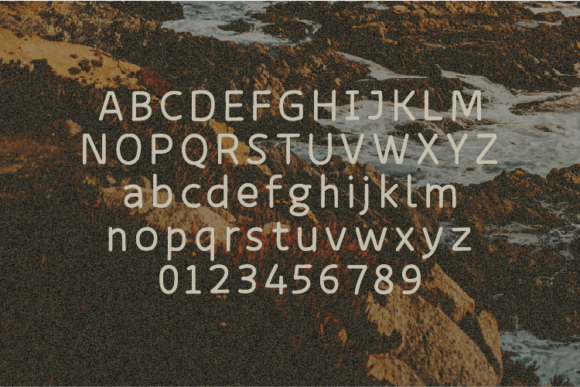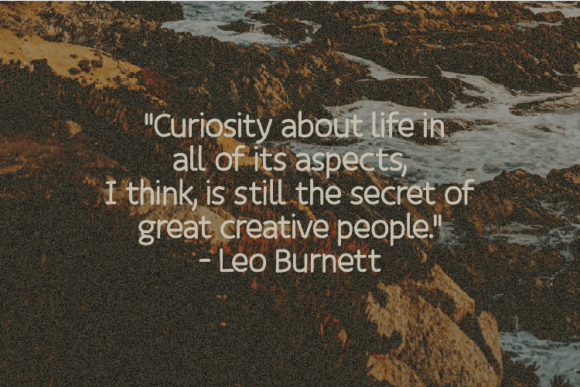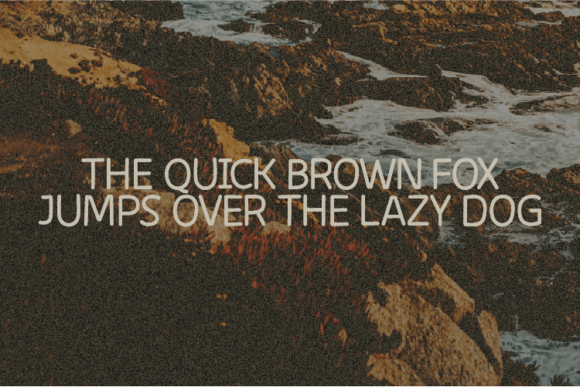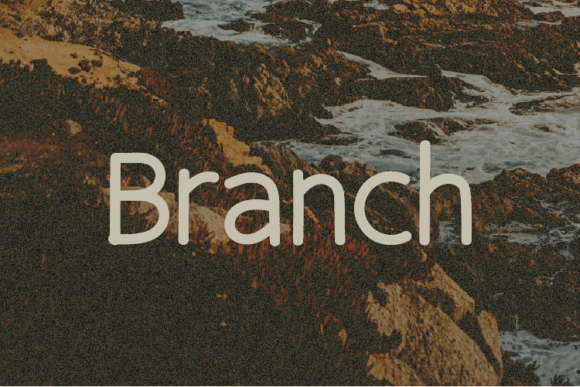
Introducing Branch Font: Elevate Your Craft with Elegance
In the world of design, the right typography can make all the difference. A well-crafted font can elevate your project, convey your message with clarity, and leave a lasting impression on your audience. If you’re a designer, crafter, or DIY enthusiast looking for a font that embodies natural elegance and effortless style, look no further than Branch Font. This casual and neat sans serif font is designed to impress, making it the perfect addition to your creative toolkit.
The Charm of Branch Font
Branch Font boasts a unique blend of simplicity and sophistication. Its sans serif design ensures a clean and modern look, while its natural and elegant style adds a touch of warmth and approachability. This font is perfect for projects that require a subtle yet distinctive flair, such as branding, packaging, signage, and more. Whether you’re working on a craft project, designing a logo, or creating marketing materials, Branch Font is sure to enhance your work with minimal effort.
Key Features of Branch Font
• Casual and Neat Design: Branch Font features a carefully crafted design that strikes the perfect balance between casual and neat. This makes it versatile enough to be used in a variety of contexts, from playful and creative projects to more formal and professional applications.
• Sans Serif Elegance: The sans serif style of Branch Font gives it a modern and streamlined appearance, making it easy to read and visually appealing. This style is particularly effective for digital media, but it also works beautifully in print.
• Elegant and Natural Style: What sets Branch Font apart is its elegant and natural aesthetic. It brings a sense of warmth and friendliness to your designs, making it perfect for brands and crafts that want to connect with their audience on a personal level.
• Versatility: One of the greatest strengths of Branch Font is its versatility. It can be used for a wide range of projects, including but not limited to, logos, branding, packaging, posters, and digital media. Its adaptability makes it a valuable asset for any designer or crafter.
How Branch Font Can Elevate Your Craft
Using Branch Font in your projects can have a significant impact on how your work is perceived. Here are a few ways it can elevate your craft:
• Stand Out from the Competition: In a crowded market, it’s essential to differentiate your product or brand. Branch Font can help you achieve this by adding a unique and memorable touch to your designs.
• Enhance Readability: The clean and clear design of Branch Font ensures that your message is communicated effectively. This is particularly important for digital content, where readability can significantly affect user engagement.
• Add a Personal Touch: The elegant and natural style of Branch Font can add a personal touch to your projects, making them more relatable and engaging to your audience.
Tips for Using Branch Font Effectively
To get the most out of Branch Font, consider the following tips:
• Pair with Complementary Fonts: While Branch Font is versatile on its own, pairing it with complementary fonts can add depth and interest to your designs. Look for fonts that contrast with Branch Font’s sans serif style for the best results.
• Experiment with Sizes and Weights: Don’t be afraid to experiment with different sizes and weights of Branch Font. This can help you create visual hierarchy and add emphasis to key elements in your design.
• Consider Your Audience: Keep in mind the preferences and expectations of your target audience when using Branch Font. Its elegant and natural style makes it suitable for a wide range of audiences, but it’s essential to ensure it aligns with your brand’s identity and message.
Font Name Branch Font
Author Hanna Bie
Branch Font is a remarkable addition to any designer’s or crafter’s toolkit. Its casual yet neat sans serif design, combined with its natural and elegant style, makes it the perfect choice for those looking to elevate their craft with minimal effort. Whether you’re aiming to stand out from the competition, enhance readability, or add a personal touch to your projects, Branch Font is sure to impress. Explore the possibilities of Branch Font today and discover how it can transform your designs.